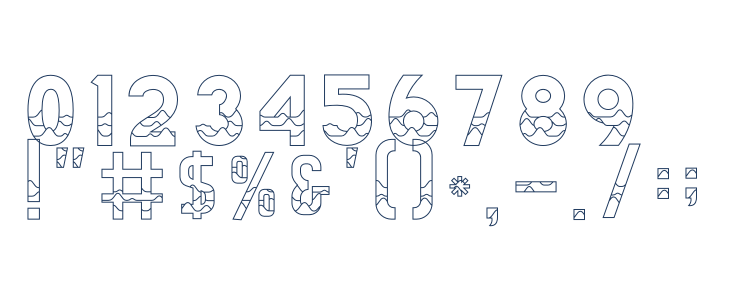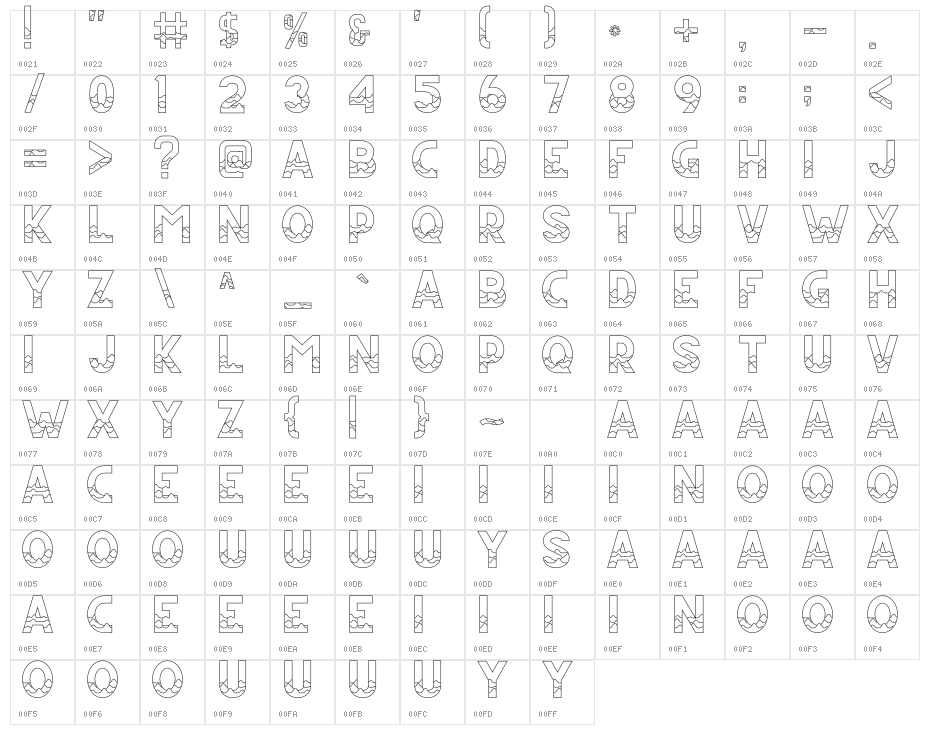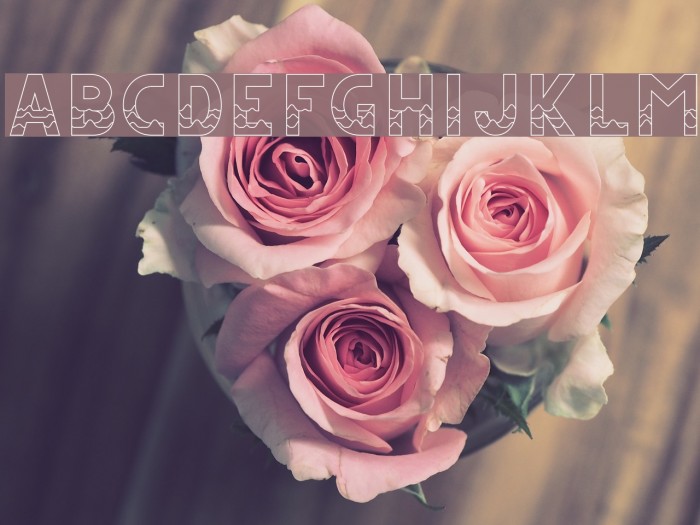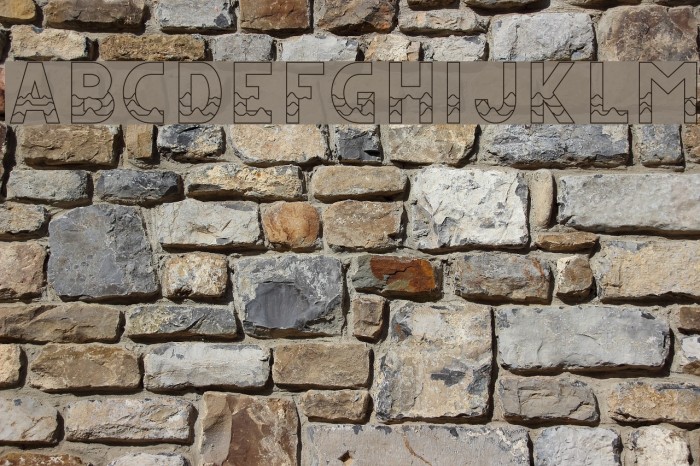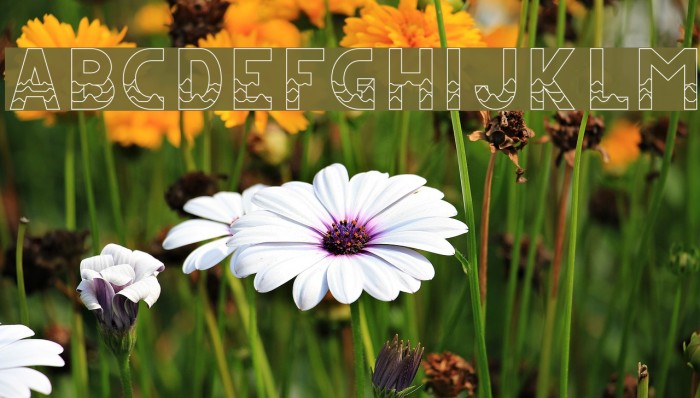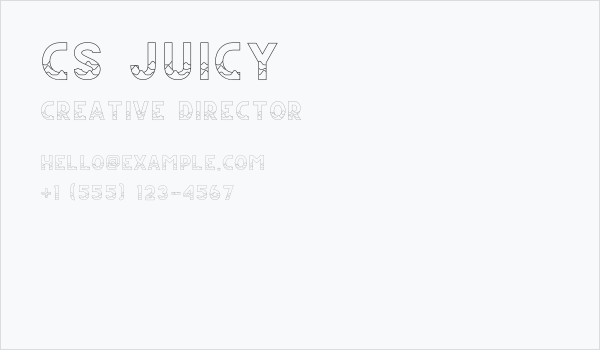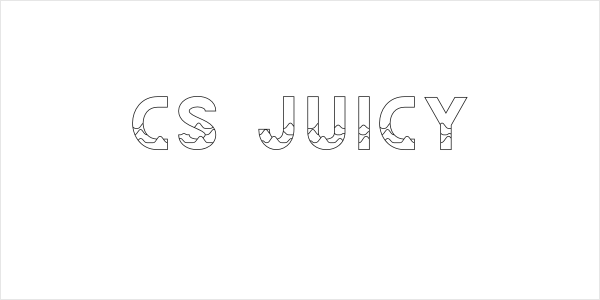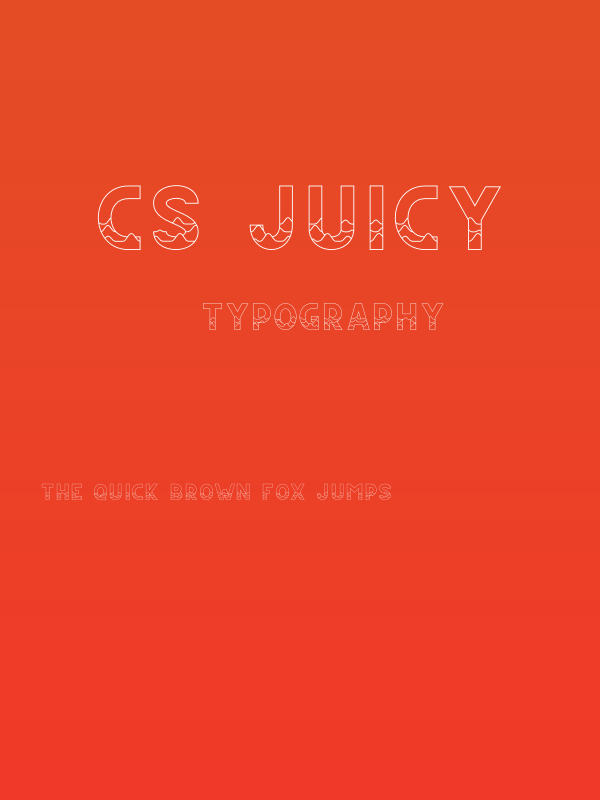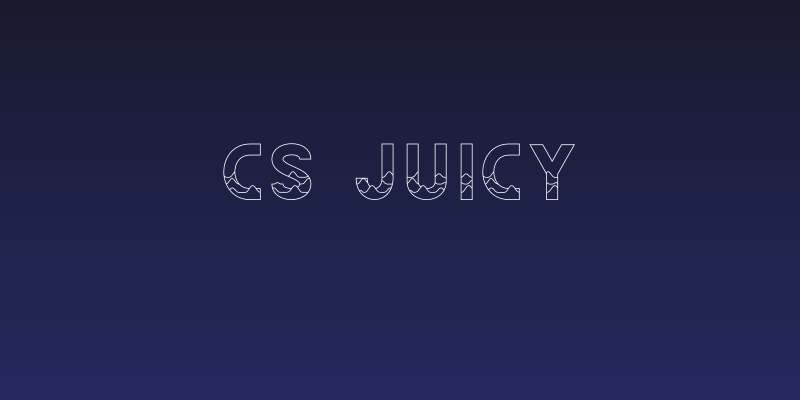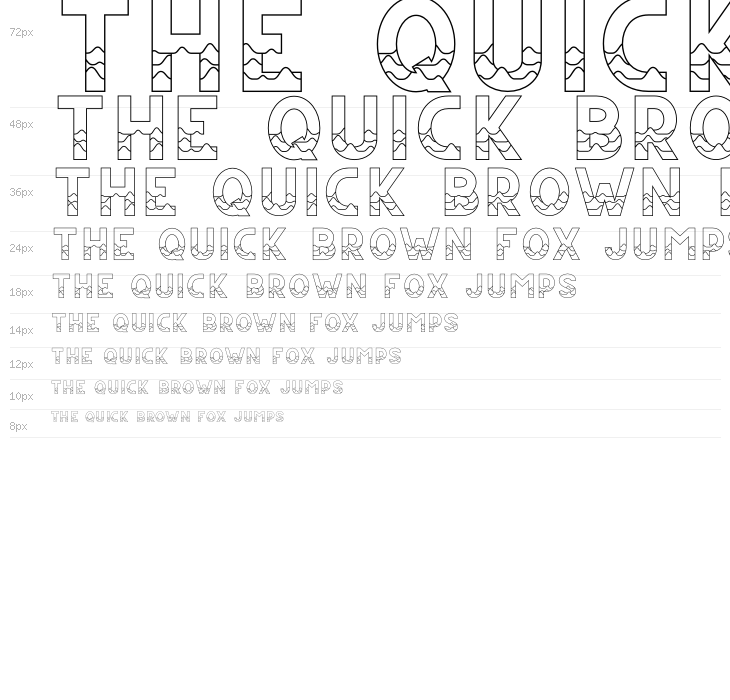
CS Juicy Font
CS Juicy Description
This font features a playful and decorative style with a unique pattern filling each character. The letters are bold and outlined, with an internal design that resembles waves or clouds, adding a whimsical touch. The uppercase and lowercase letters maintain a consistent style, ensuring uniformity across the alphabet. Numbers and special characters are also included, each with the same intricate pattern. The font's design is eye-catching and suitable for creative projects that require a fun and engaging aesthetic.
| Overall Style | Playful, Decorative |
| Proposed Projects | Ideal for children's book covers, playful branding, party invitations, and creative posters. |